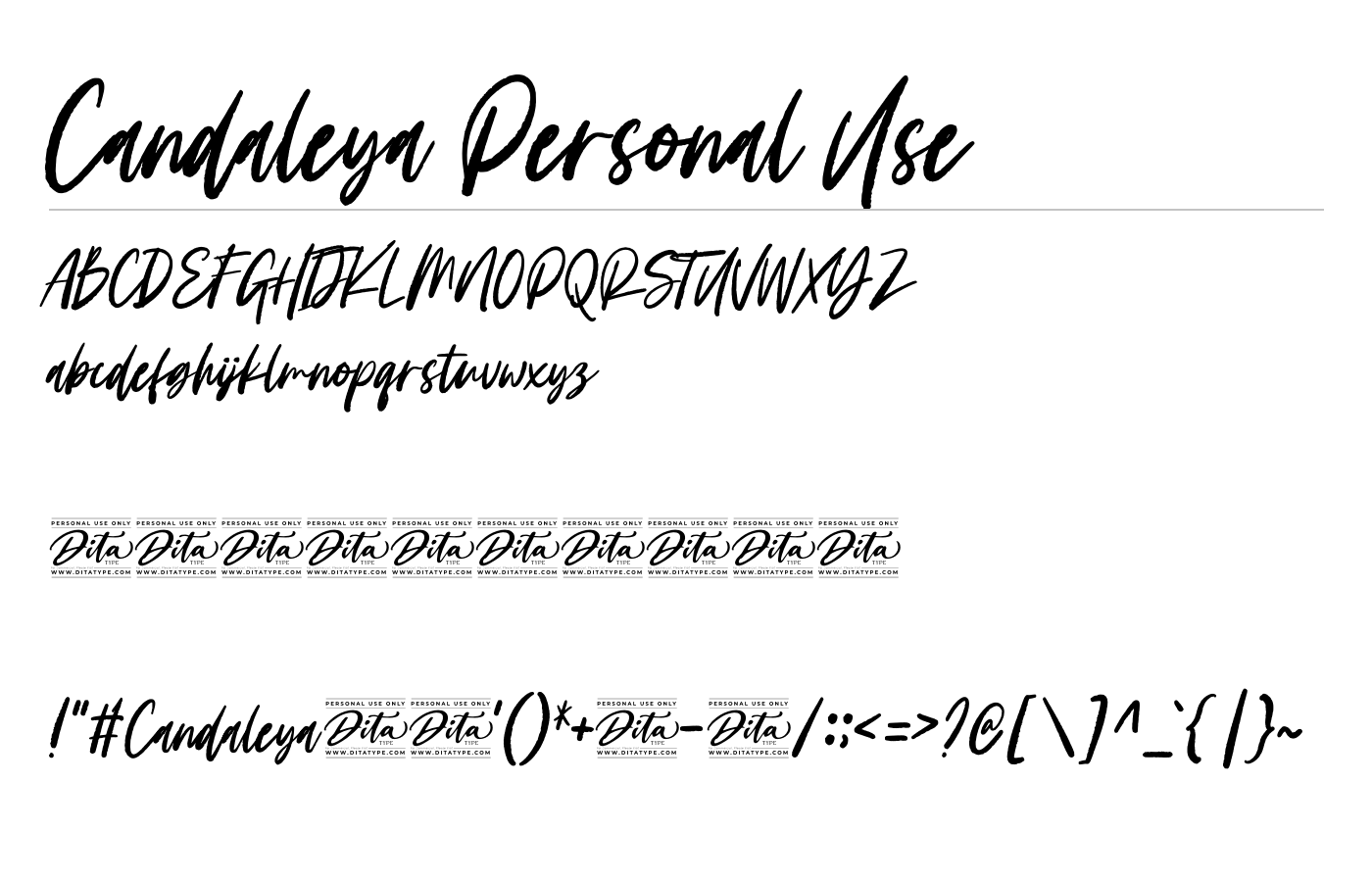
Candaleya Personal Use is an expressive, brush-script font with a lively, hand-painted feel. Its flowing, slightly irregular strokes and moderate contrast give it a natural, casual charm perfect for personal projects, branding, and creative headlines. This font works well in designs seeking a warm, approachable, and artistic touch.
Candaleya Personal Use Font
About Candaleya Personal Use Font
| Font family | Candaleya Personal Use Font |